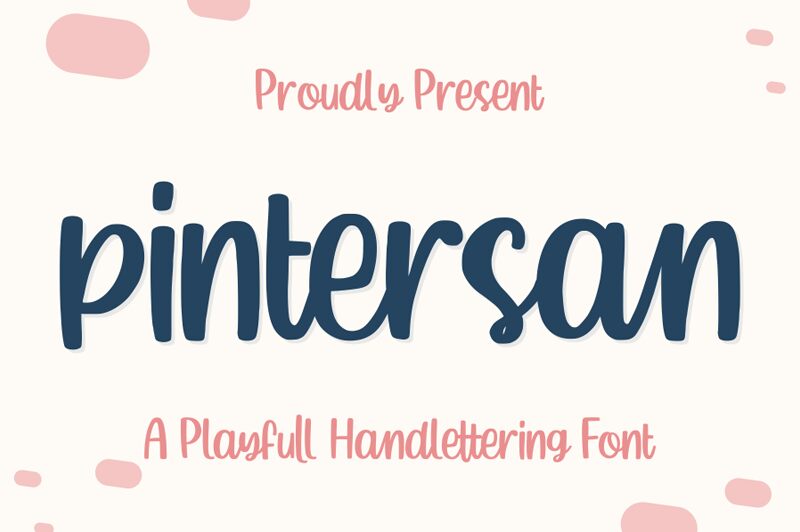
Pintersan, the brainchild of Risman Ginarwan, is a playful handwritten font that brings out the quirky side of any project. Its semi-condensed width gives it a unique character that makes it perfect for designs that need to stand out. Use it for anything from greeting cards to social media posts and watch as its whimsical style captures your audience's attention. With Pintersan, you can add a touch of fun to your next project without sacrificing legibility or professionalism. Get creative and let Pintersan be the go-to font for all your design needs!